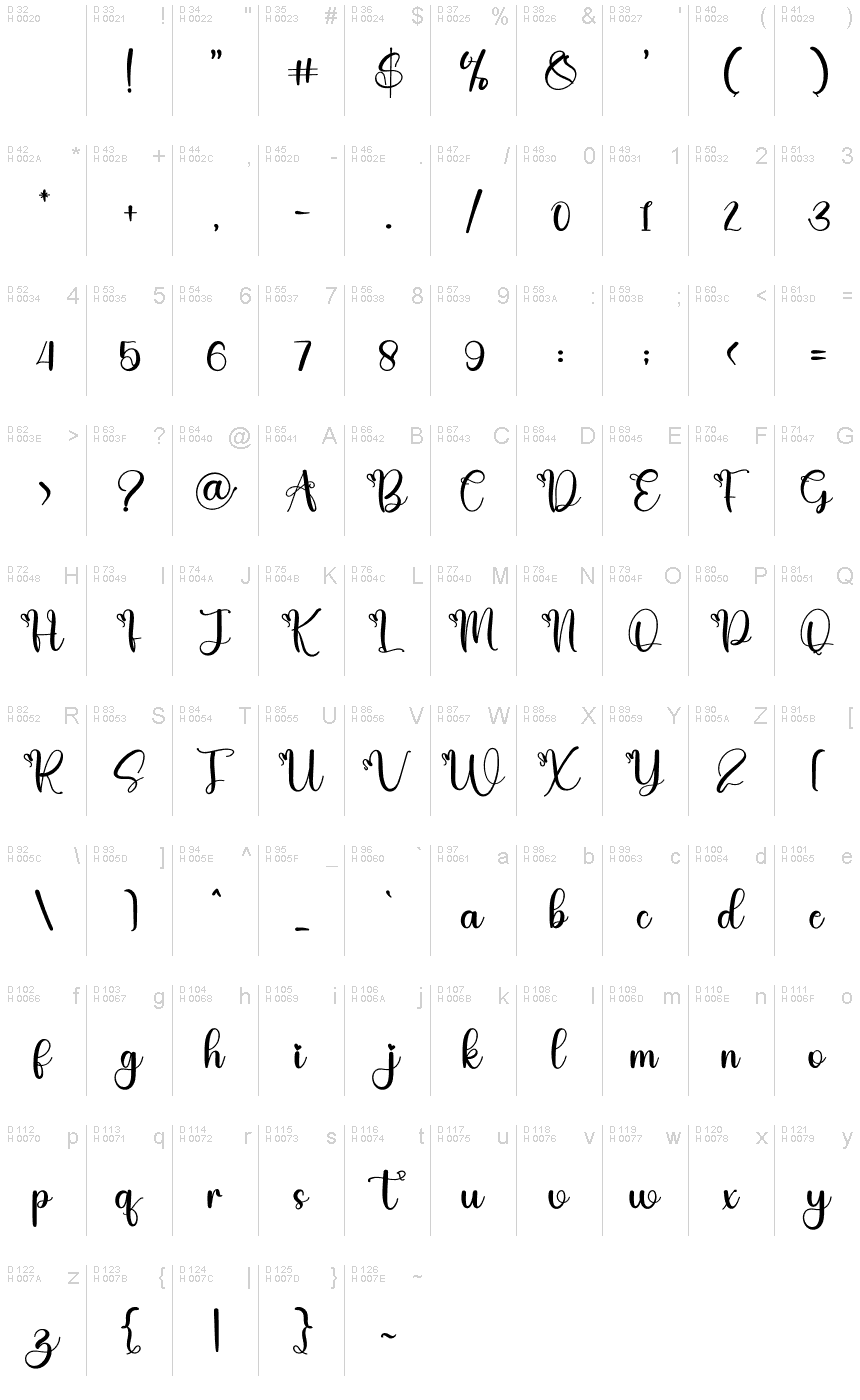
Darling
Darling, the enchanting creation of Inermedia Studio, is a captivating calligraphy font that effortlessly blends elegance and playfulness.
With its semi-light weight, Darling exudes a delicate grace that adds a touch of sophistication to any project. Perfectly suited for wedding invitations, greeting cards, or romantic branding materials, this font brings an air of timeless beauty to every design. Its flowing strokes and intricate details make it an ideal choice for fashion magazines or luxurious lifestyle blogs.
Let Darling's graceful charm elevate your creations and leave a lasting impression on your audience.